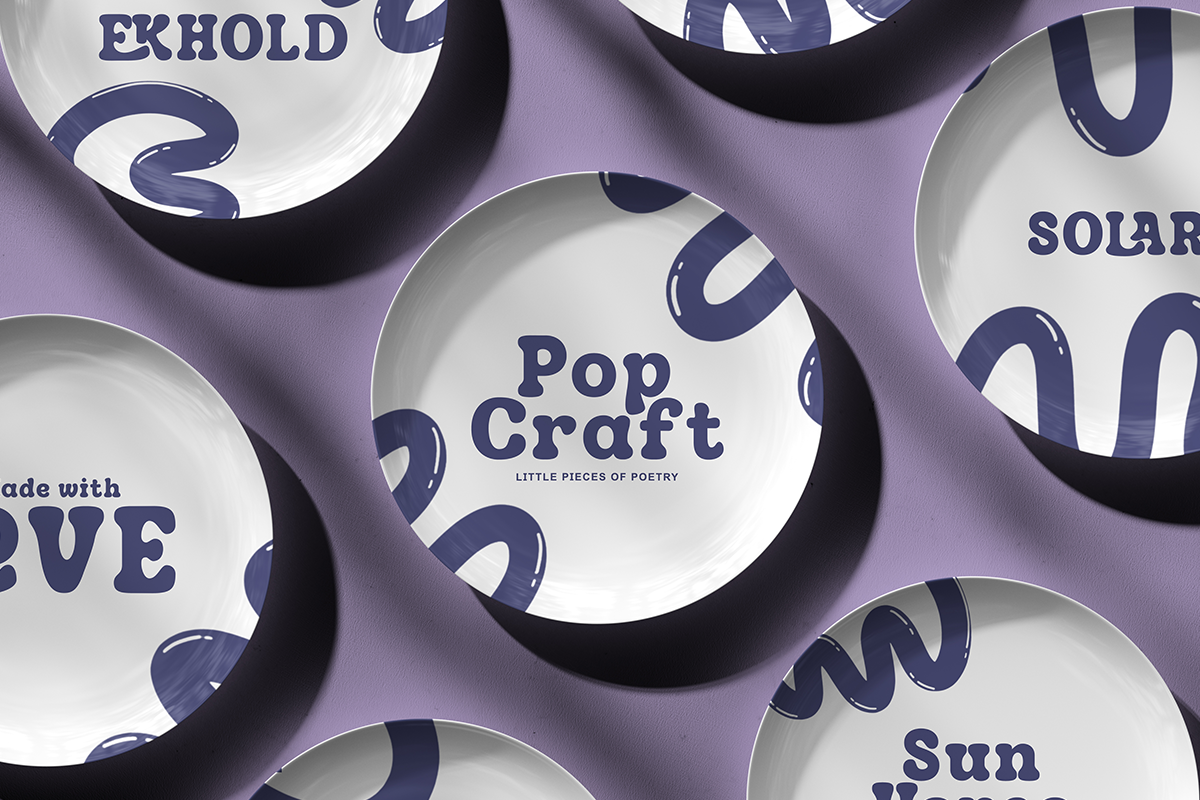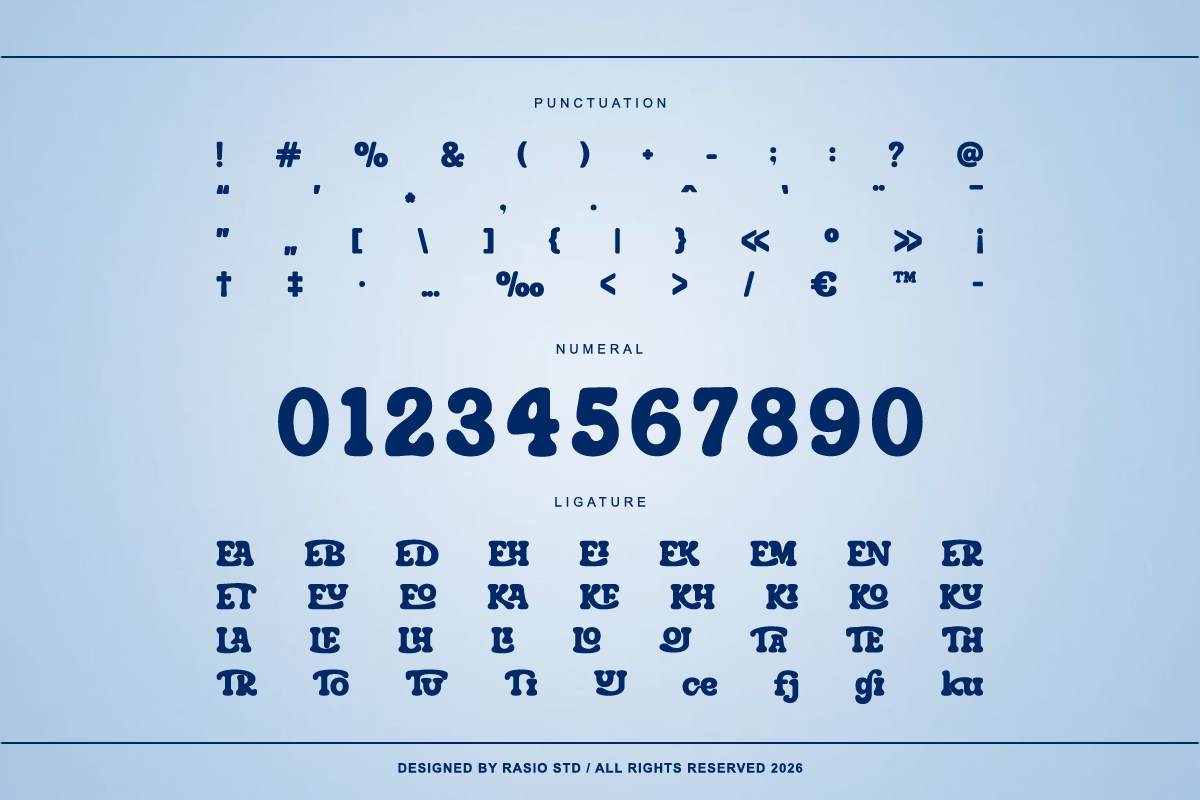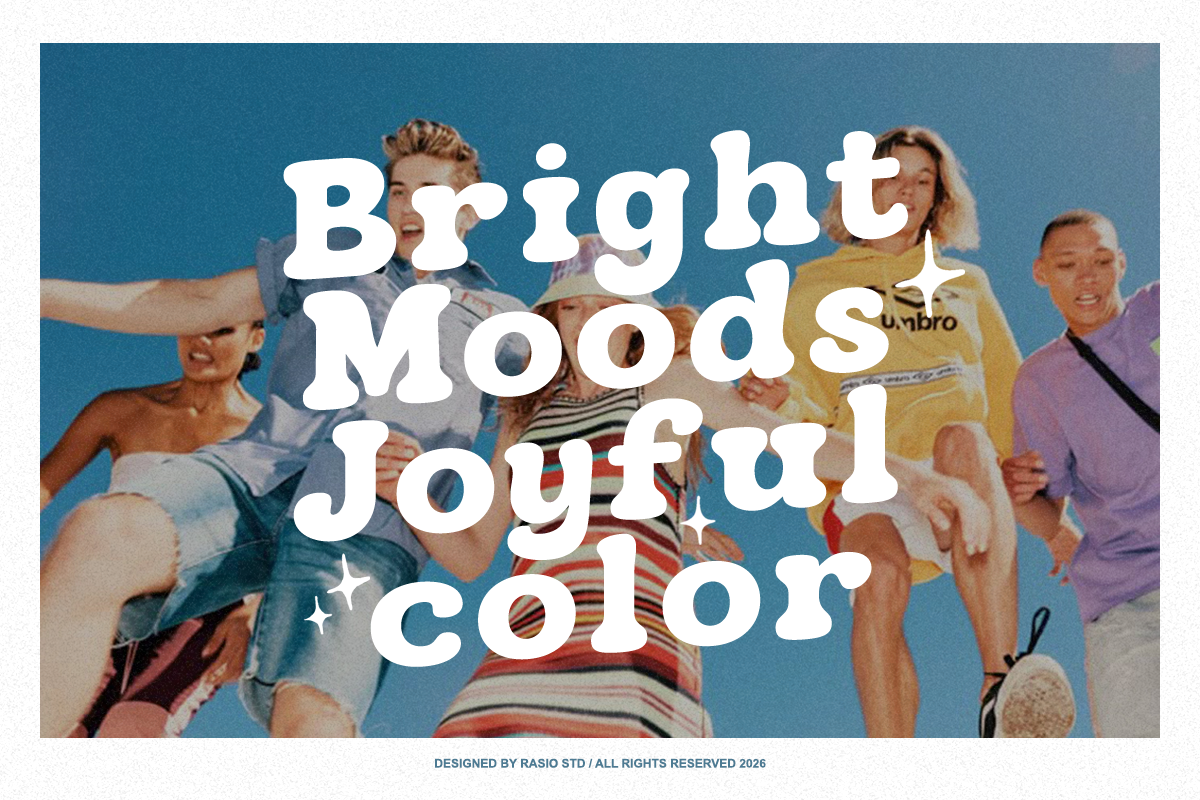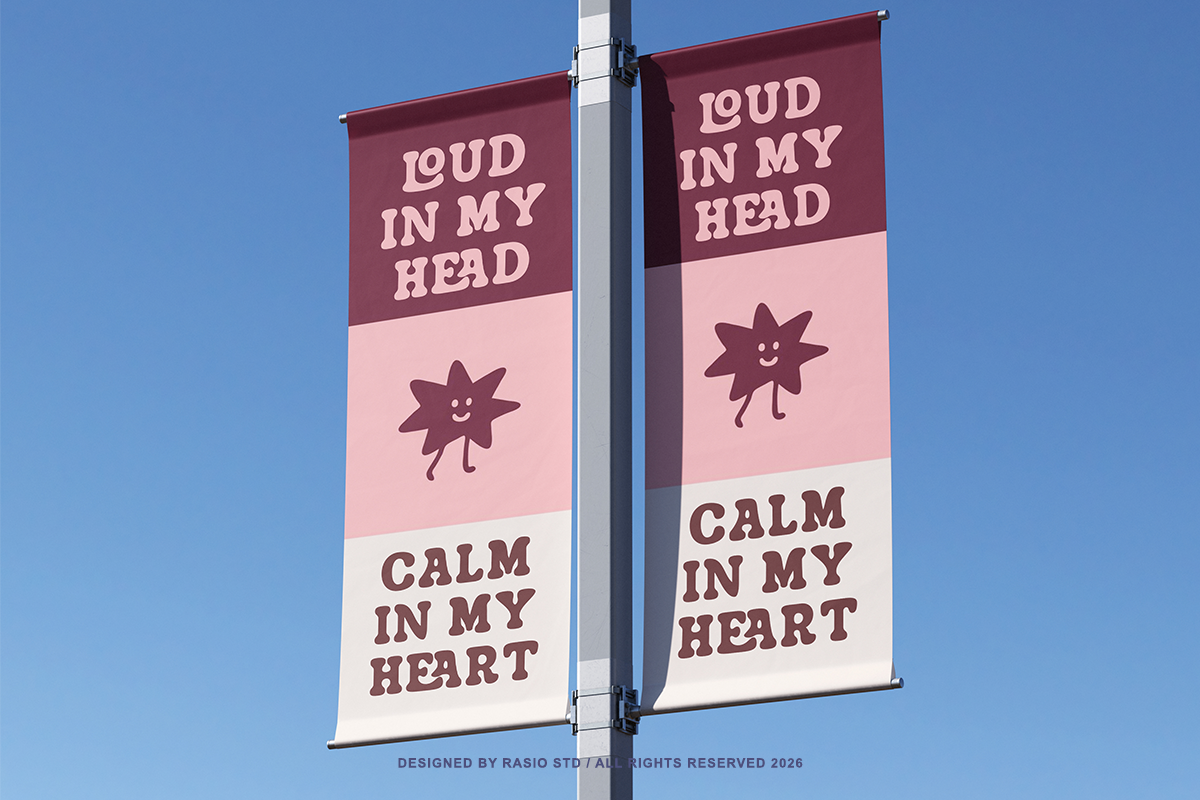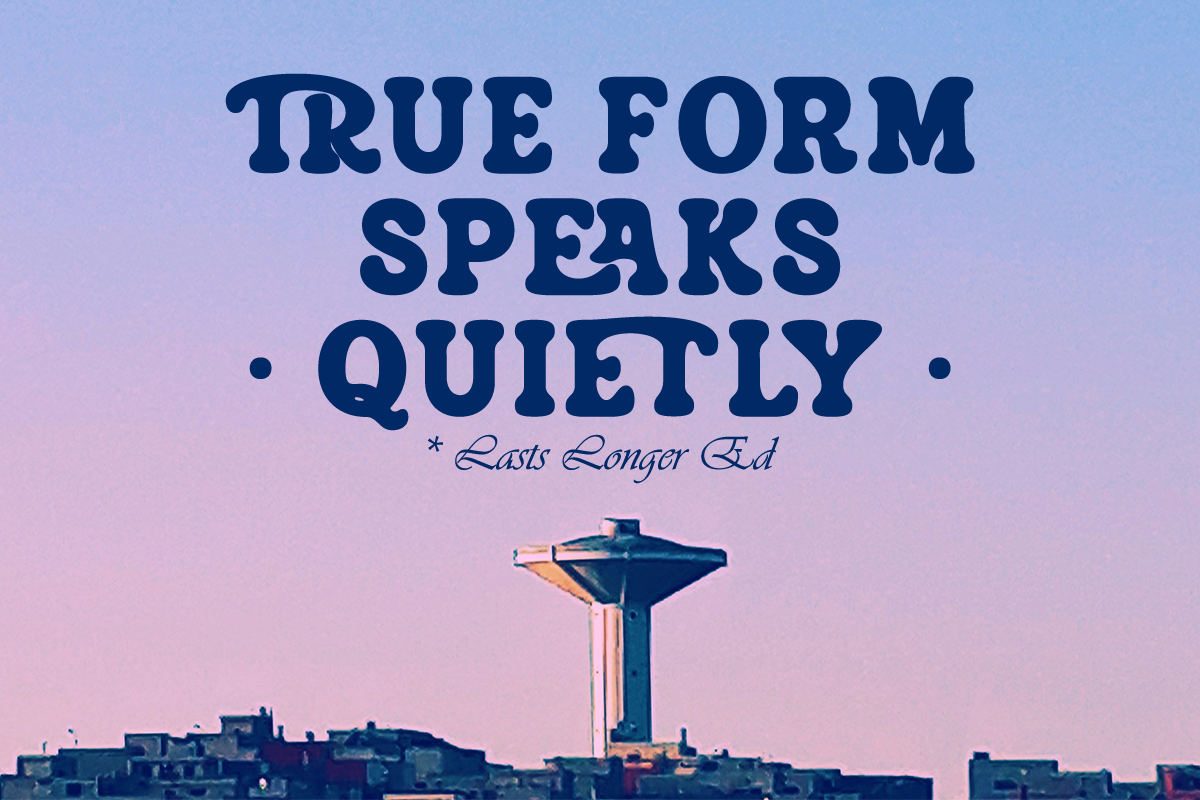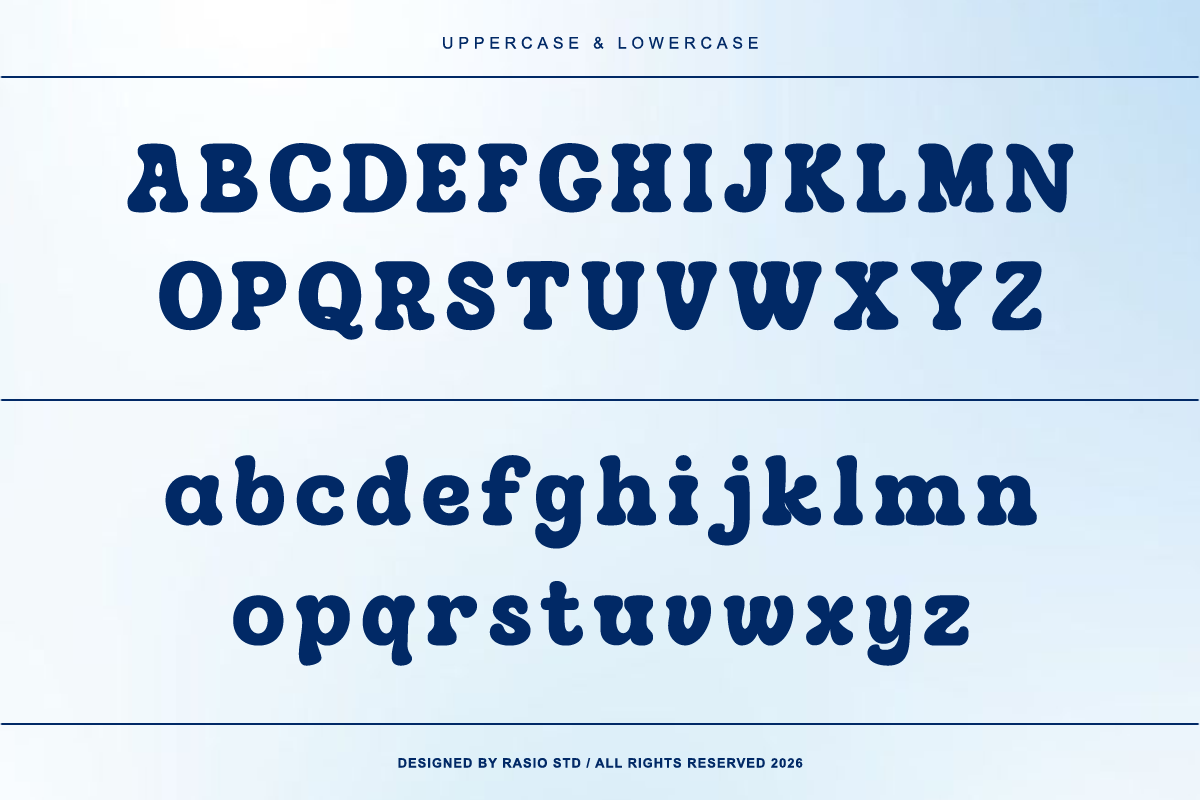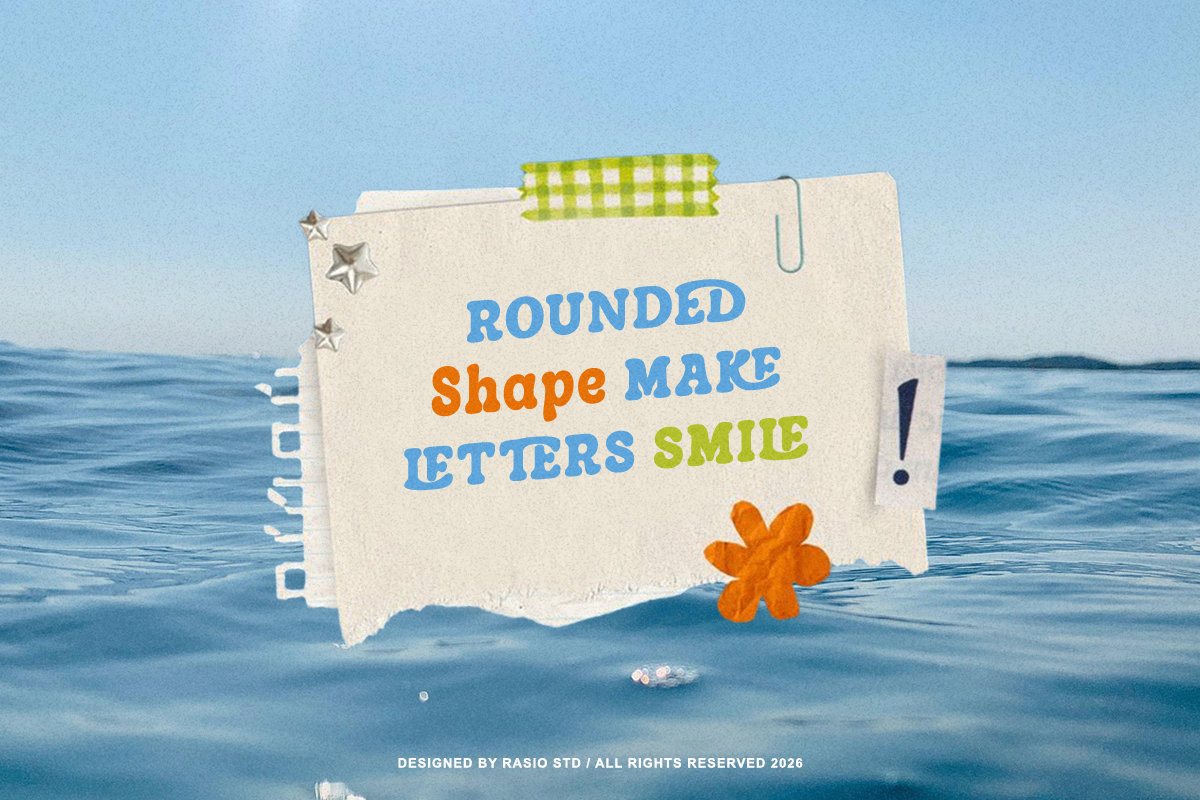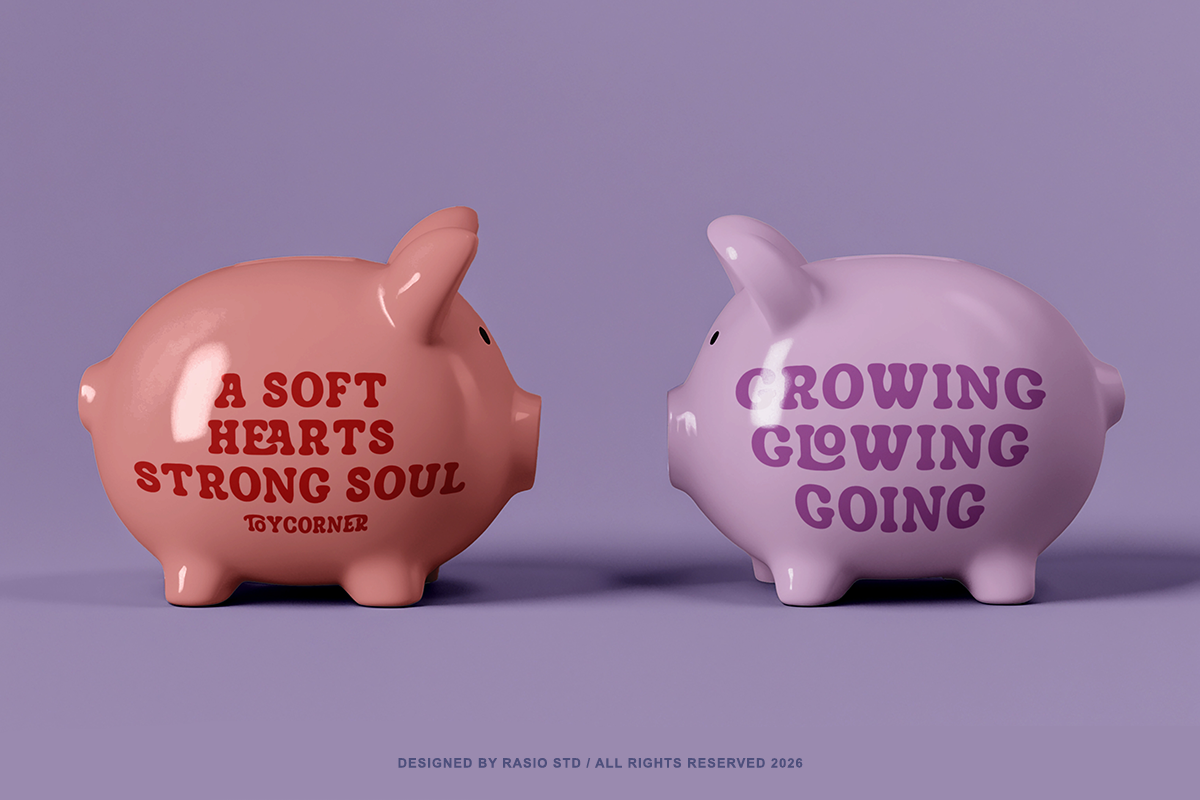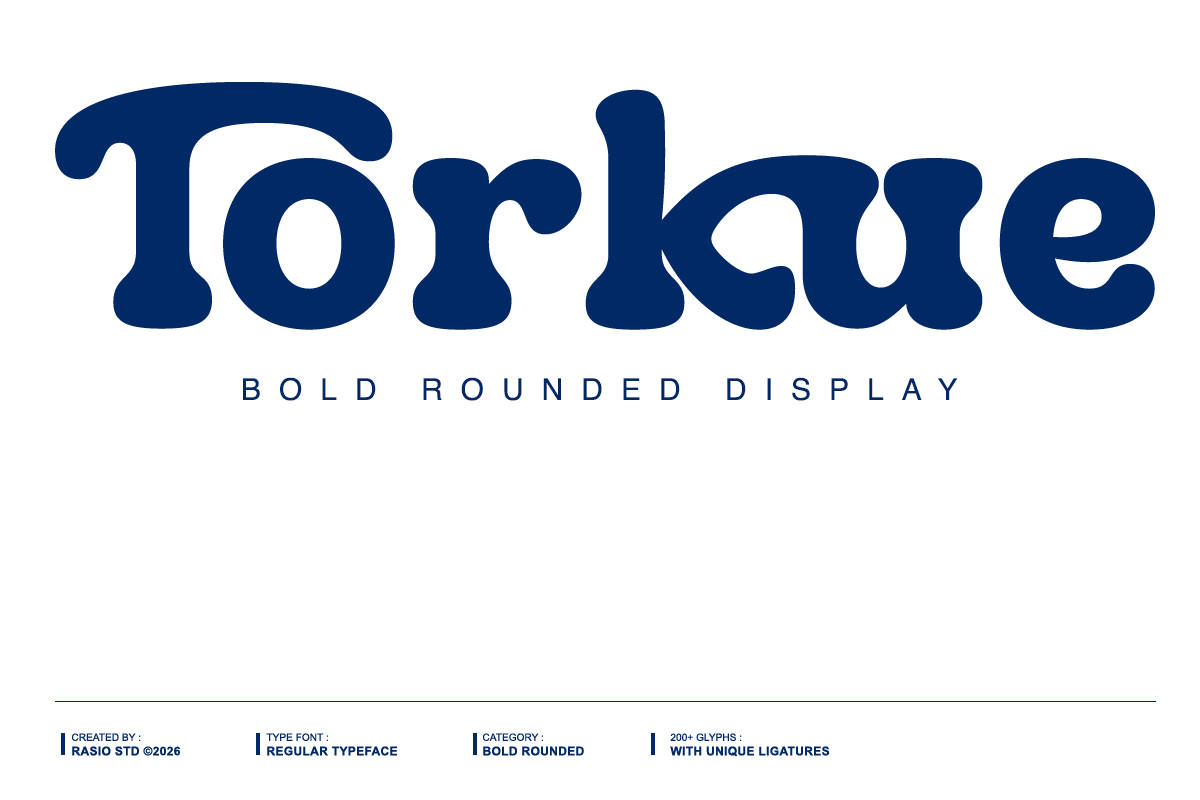
Torkue Bold Rounded Display Font
Torkue is a bold rounded display font designed with smooth curves, playful proportions, and soft serif details that create a friendly yet confident visual presence. The letterforms feature thick strokes, bulbous terminals, and balanced spacing, giving the typeface a strong personality while maintaining readability in large headline compositions. This font package includes uppercase, lowercase, numbers, punctuation, and unique ligatures to enhance typographic flexibility.
Torkue is perfect for bold visual projects that require expressive and friendly typography. The rounded shapes and soft serif details create a warm retro atmosphere that works beautifully for branding systems, creative posters, editorial headlines, packaging designs, lifestyle magazines, social media graphics, advertising visuals, music posters, retro themed designs, and modern creative marketing campaigns.
- Bold rounded display structure with soft, playful serif shapes
- Thick strokes and smooth curves creating a strong yet friendly appearance
- Bulbous terminals and rounded edges for a warm, approachable character
- Balanced proportions designed to maintain clarity in large headline sizes
- Comfortable spacing that enhances readability in bold display compositions
- Brand identity projects that require bold, friendly, and memorable typography
- Posters, album covers, and creative advertising visuals with strong display headlines
- Editorial titles and magazine covers with playful retro character
- Product packaging and labels that need eye-catching and expressive lettering
- Social media graphics and promotional content that demand bold visual impact